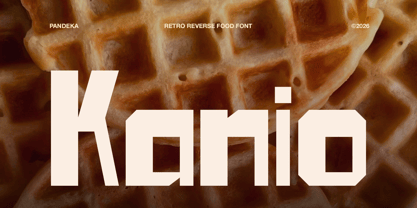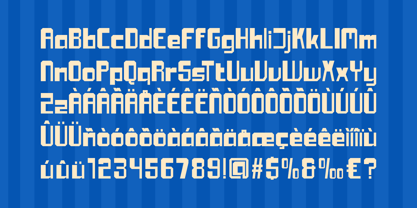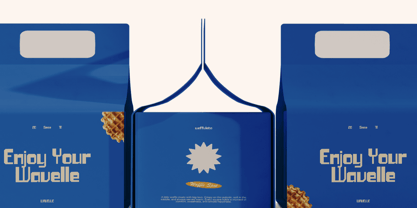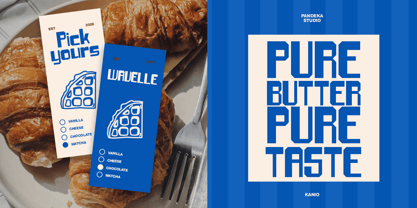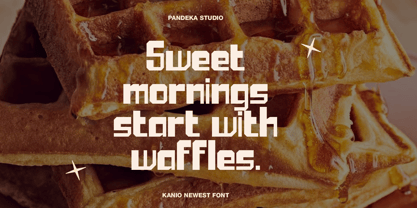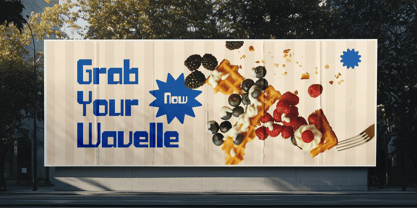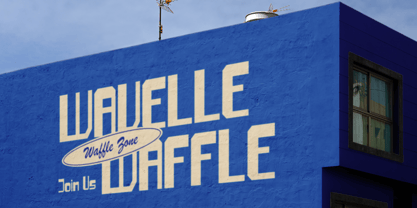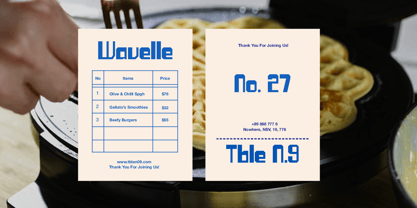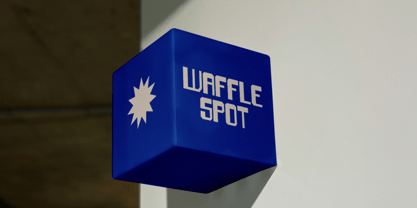
Kanio
by Pandeka Studio
The Kanio Font Family was designed by Sagara Nararya and published by Pandeka Studio. Kanio contains 2 styles and family package options. More about this family
Kanio is a retro food font featuring bold geometric letterforms, distinctive cuts, and a strong vintage-inspired character. Designed to bring a nostalgic yet modern feel to food-related visuals, Kanio works especially well for bakery, cafe, waffle, snack, restaurant, and casual food branding.
Designers: Sagara Nararya
Foundry: Pandeka Studio